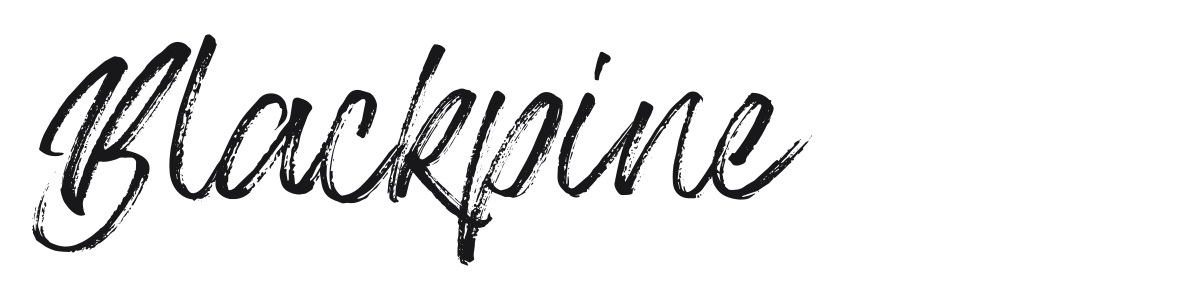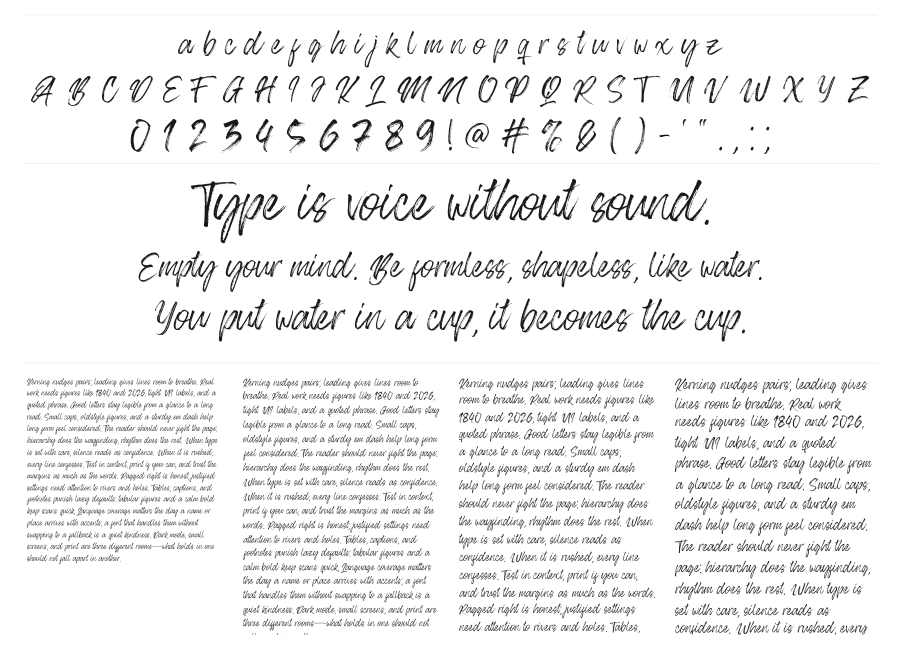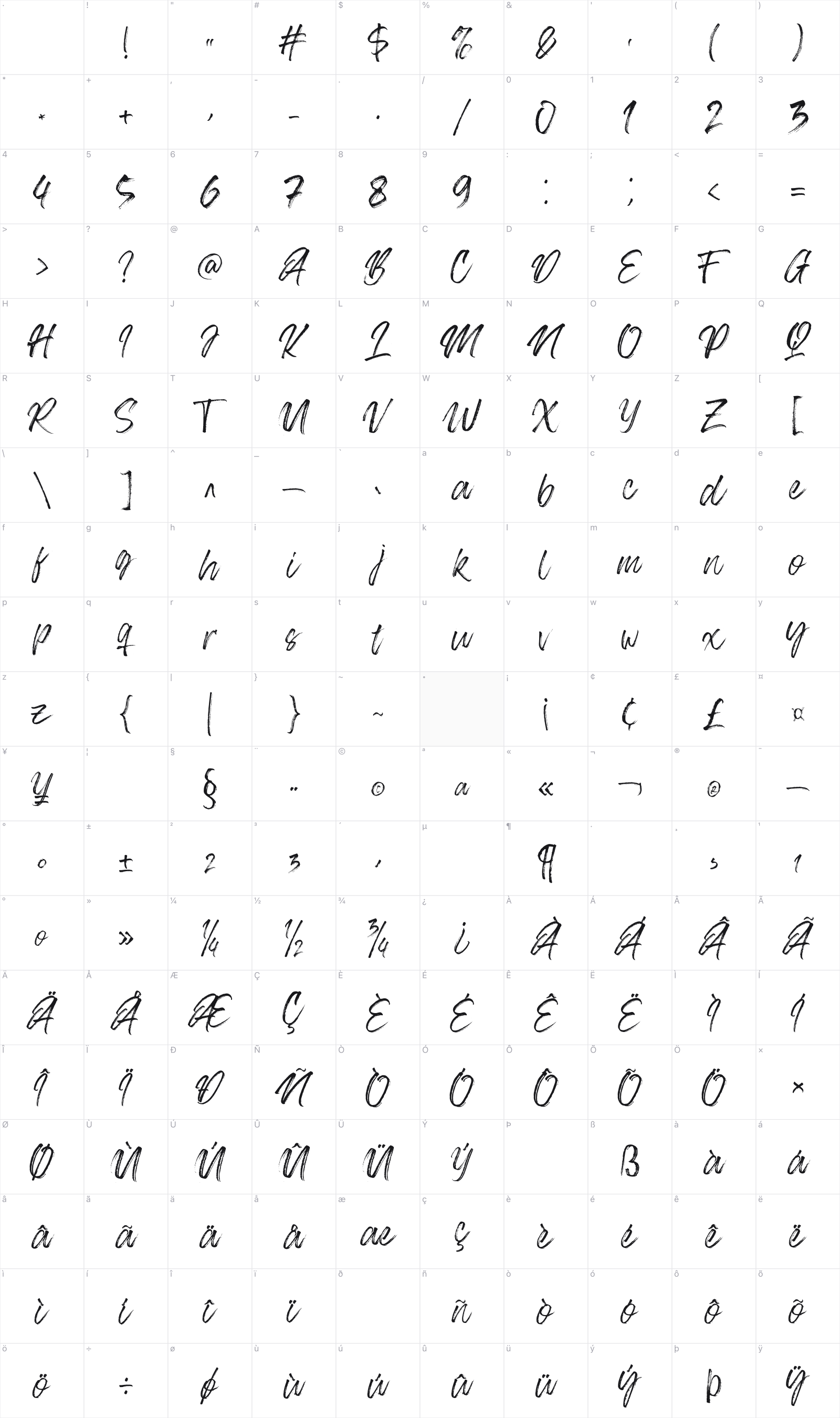
Blackpine
Blackpine is a rough brush script with genuine bristle texture and an energetic, free-flowing hand. Strokes trail with natural ink drag, giving each character a lived-in quality far from the cleaned-up polish of most digital scripts. It suits outdoor brands, craft labels, and any project that needs handmade grit.